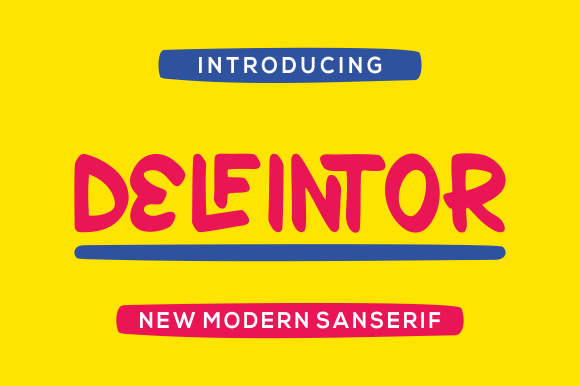
Jump into a world of creativity with Delfintor Font, the ultimate sans serif font that exudes charm and uniqueness. Dive into a universe of eye-pleasing designs and let your imagination run wild. Experience the thrill of unlocking new dimensions of visual expression with this remarkable font, meticulously crafted by the talented brahamb78.
Delfintor was born with a flair for display projects, its bold personality making it the standout star of your creative endeavors. Whether you're captivating audiences with branding and logos or adding a touch of whimsy to candy and food packages, Delfintor's vibrance is guaranteed to leave a lasting impression. The font's cheerful disposition, coupled with its distinct appearance, promises to elevate your designs to remarkable heights.
Beyond its visual allure, Delfintor offers unparalleled versatility. Its prowess extends far and wide, making it an ideal companion for a vast array of applications. Explore the endless possibilities of Delfintor in web design, where its crisp and clean lines bring forth elegance and sophistication. Let Delfintor adorn your social media posts, adding a touch of charm and intrigue to your online presence.
Embrace the versatility of Delfintor, a font that seamlessly molds itself to fit your creative vision. Unleash your imagination and embark on a journey of endless possibilities. With Delfintor by your side, you'll elevate your designs to new heights, leaving your audience awe-inspired and eager for more.